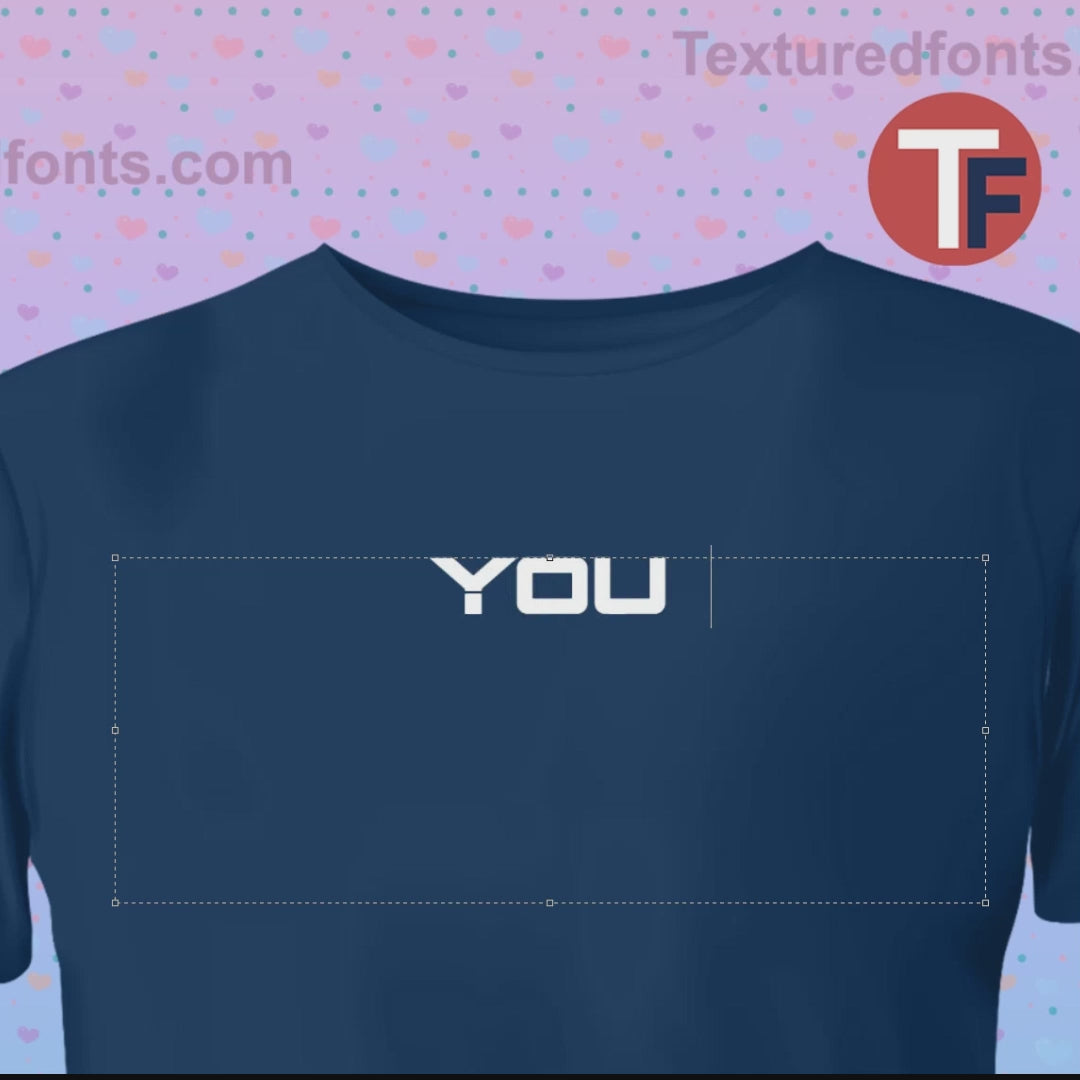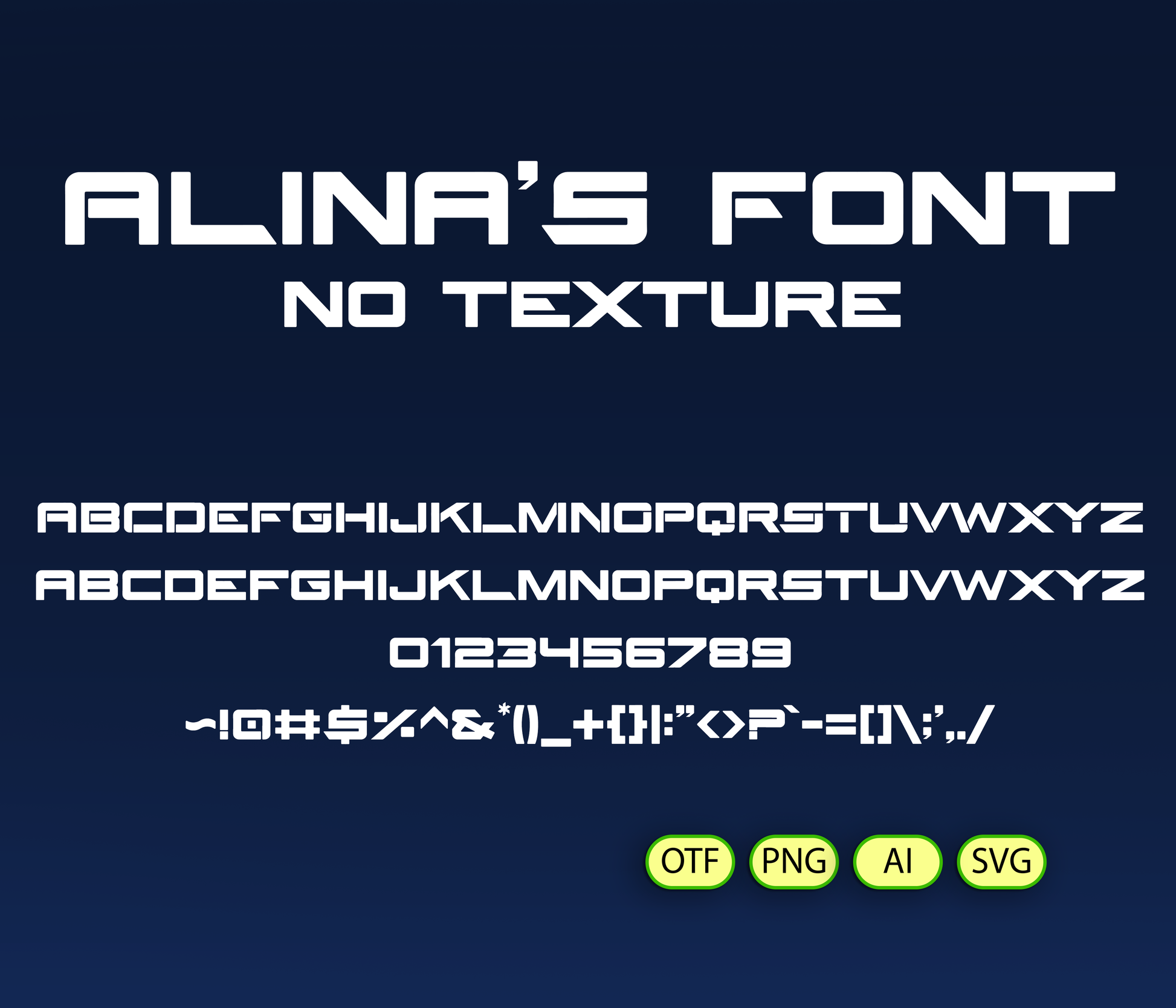
Robot Combat Font
Power Up Your Designs with the Robot Combat Font
Channel the high-octane energy and futuristic vibe of Robot Combat with our specially designed font, inspired by the thrilling world of robot boxing. Perfect for fans, event organizers, and designers looking to infuse their projects with a sense of strength and modernity, this font captures the gritty, industrial essence of Robot Combat. Whether you're creating event invitations, designing themed merchandise, or crafting digital content, our Robot Combat font ensures your projects resonate with the excitement and power of the film.
Our Robot Combat-inspired font features bold, angular lines and a rugged, industrial look that mirrors the high-tech, metallic world of robot combat. This versatile font is ideal for a variety of applications:
1. Event Promotions: Perfect for creating striking invites, posters, and banners for movie nights, gaming tournaments, or themed parties.
2. Merchandise Design: Ideal for designing t-shirts, posters, and accessories that capture the essence of Robot Combat.
3. Digital Media: Enhance websites, blogs, and social media content with powerful headers and graphics.
4. Educational Materials: Use in presentations, worksheets, and educational content focused on robotics, technology, or sports.
5. Personal Projects: Add a dynamic touch to scrapbooking, DIY crafts, or home decor inspired by the futuristic battles of Robot Combat.
Our Robot Combat font not only pays homage to the adrenaline-fueled film but also empowers you to infuse your designs with its high-energy and futuristic spirit. Whether you’re crafting promotional materials, designing unique merchandise, or adding a touch of industrial power to personal projects, this font allows you to communicate with the bold and intense essence of Robot Combat. Ready to give your creative projects a boost of strength and excitement? This font is your key to unlocking a world of innovative and impactful design.